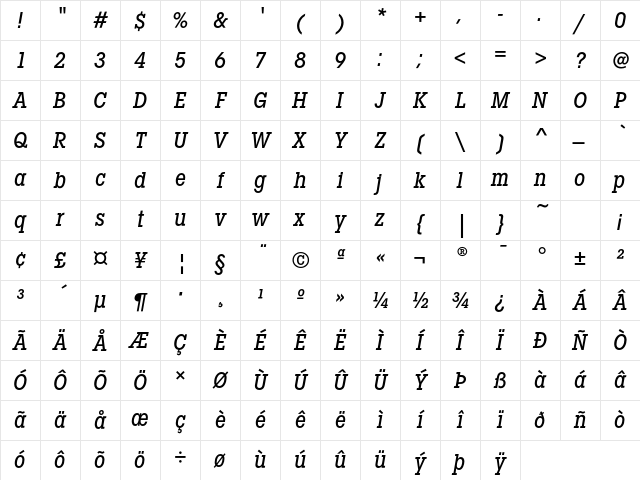
LubalinGraphEF MediCondObl
Style: MediCondObl
LubalinGraphEF MediCondObl
Complete LubalinGraphEF MediCondObl glyph index. Displaying only characters natively supported by LubalinGraphEF MediCondObl font.
Design Context for LubalinGraphEF
LubalinGraphEF is a composed and adaptable typeface that performs quietly and consistently across a wide range of design contexts. Its narrow stance lets it pack a punch even in space-constrained designs.